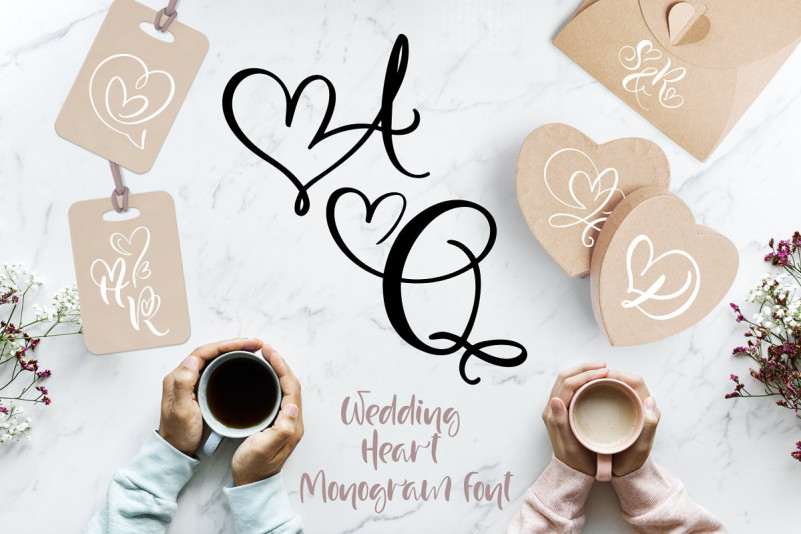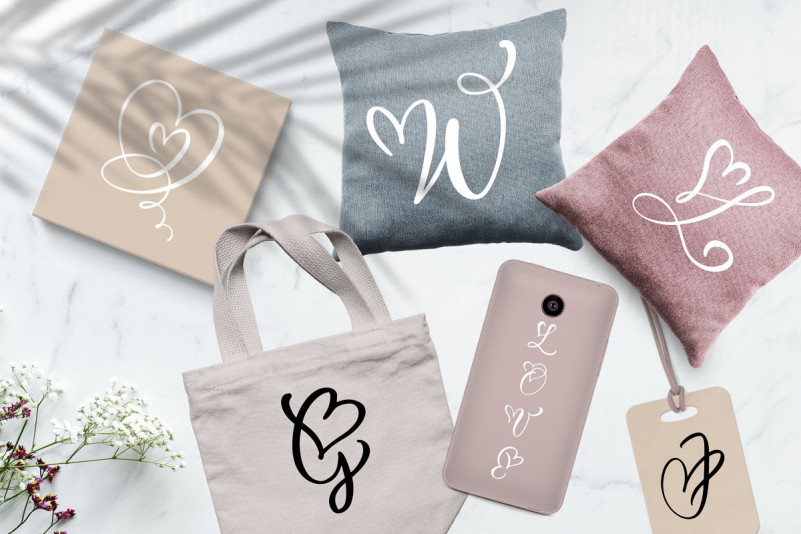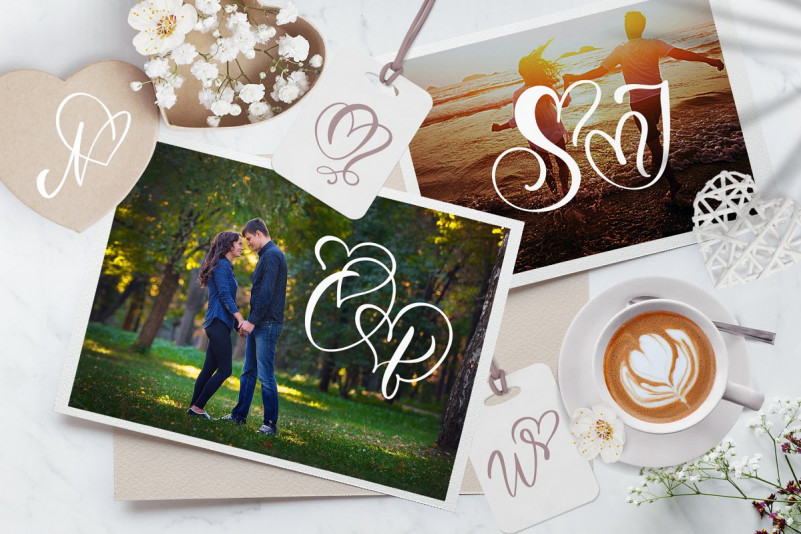
Wedding Heart Monogram Font
Wedding Heart Monogram Font includes unique flourishes heart letters that give romantic and love for wedding holiday greeting cards, invitations, etc. Thin, elegant calligraphic lines give freshness to your handmade creations.
In this font, uppercase and lowercase characters are same. Only lowercase characters have 3 alternatives.